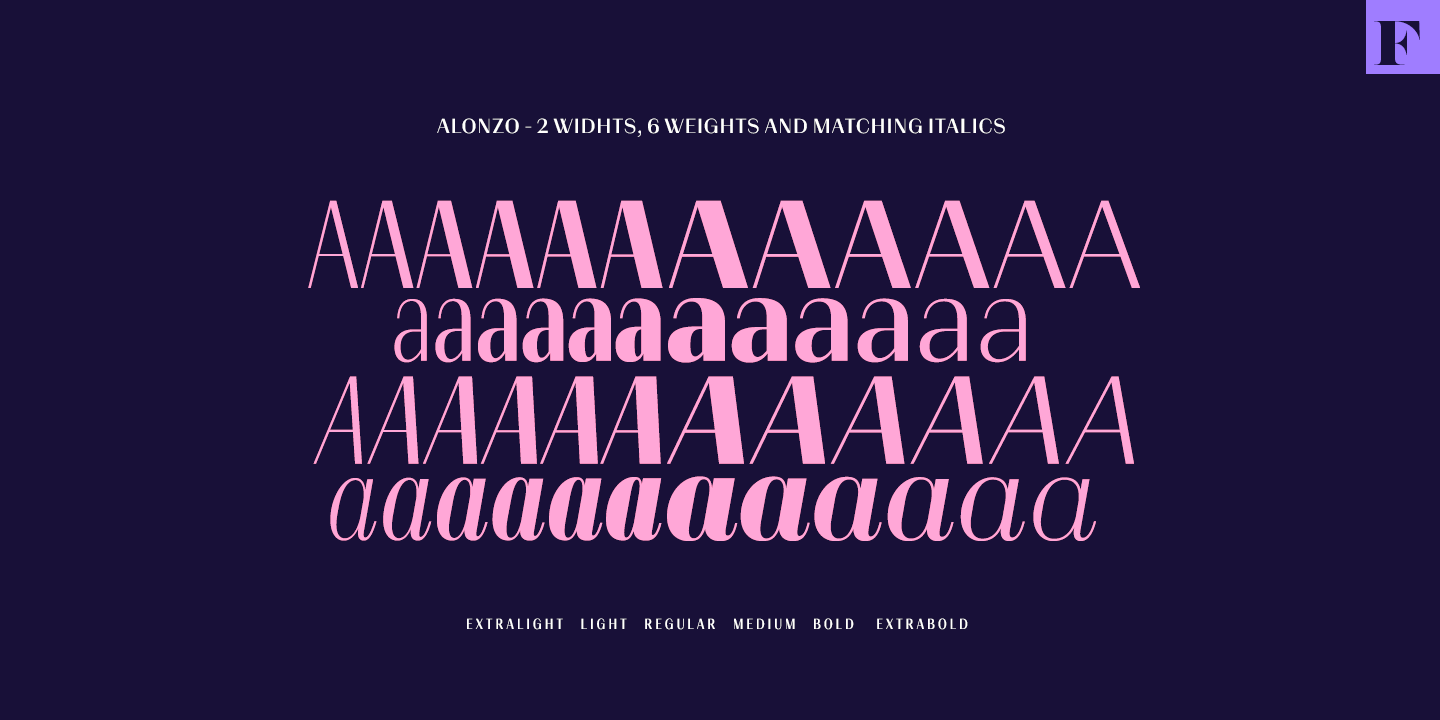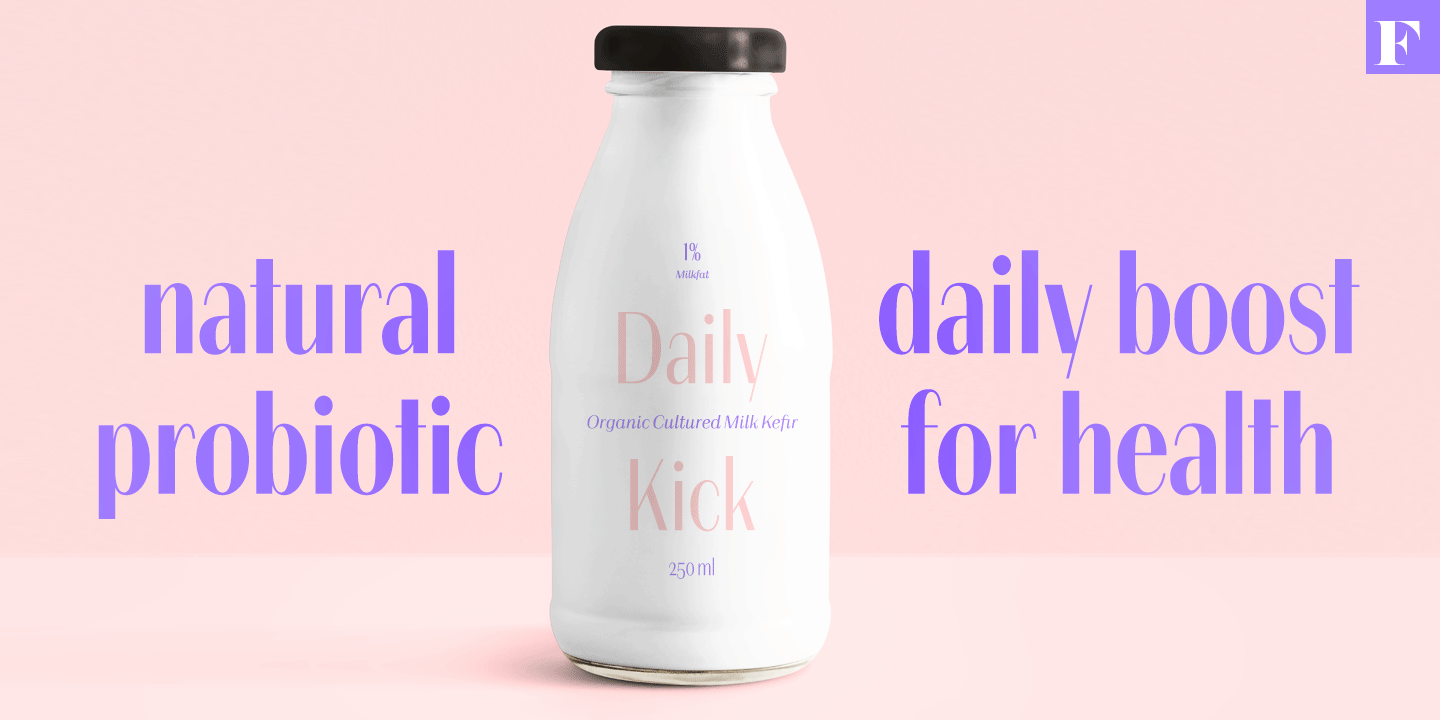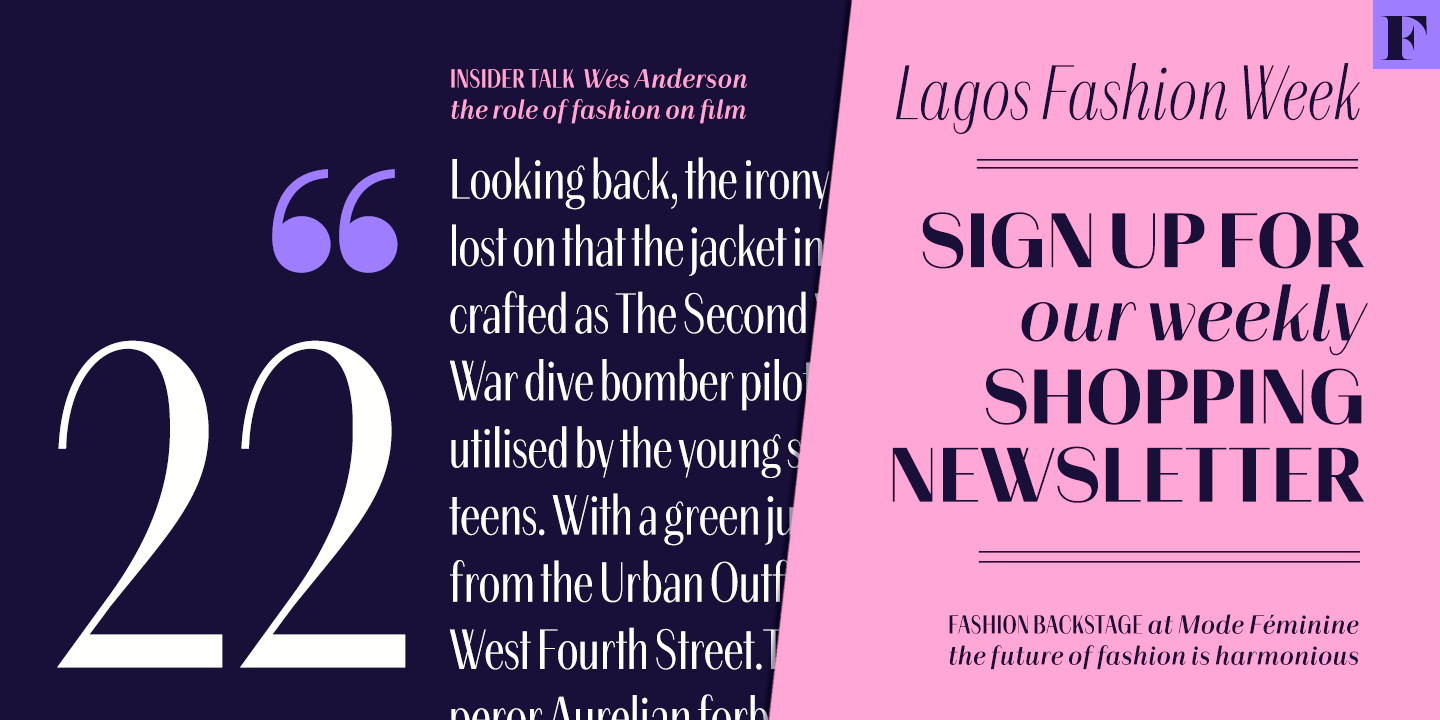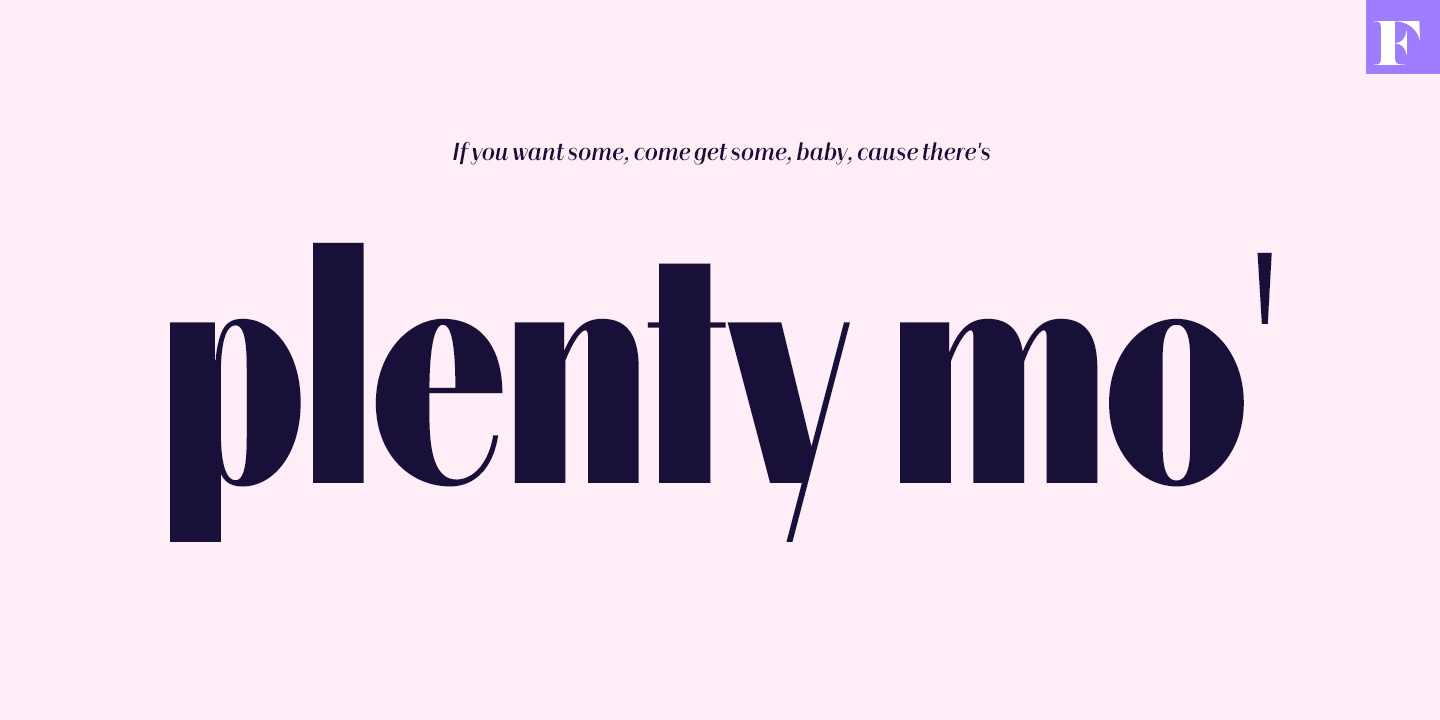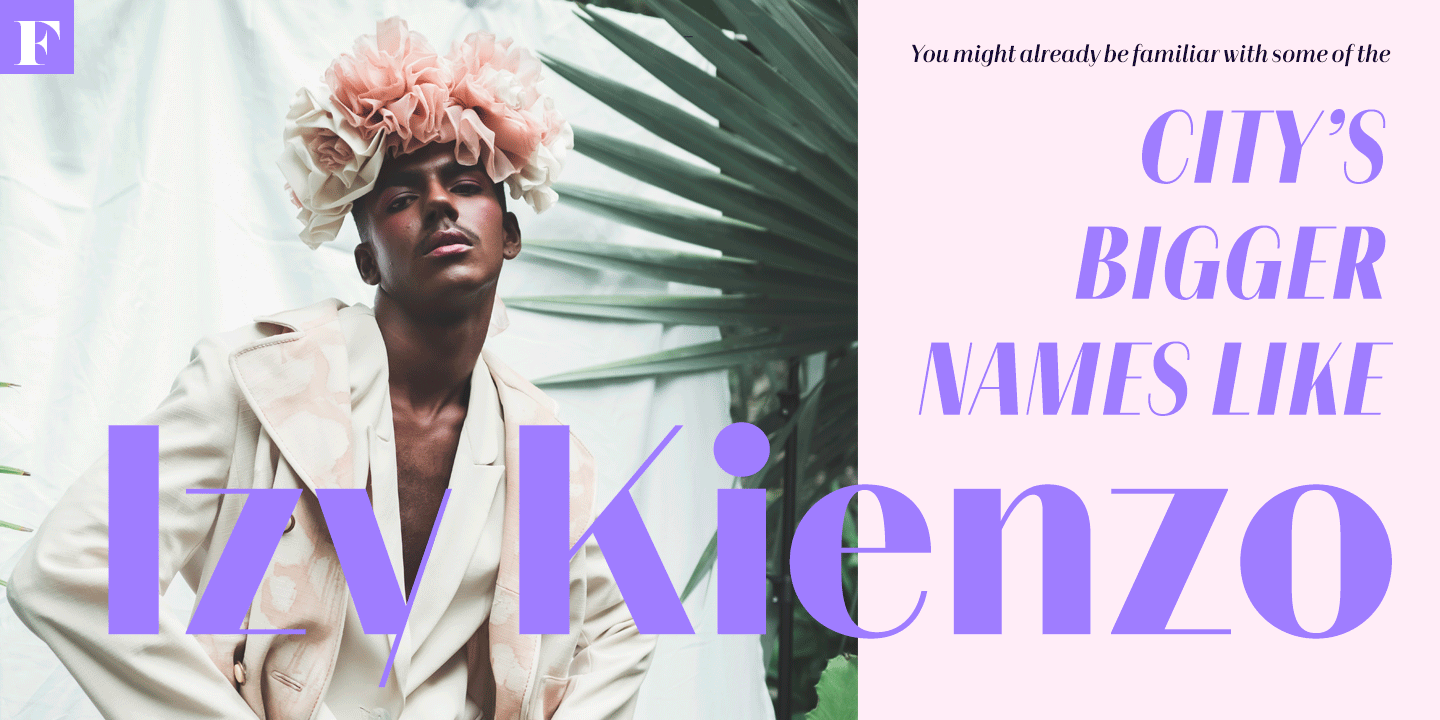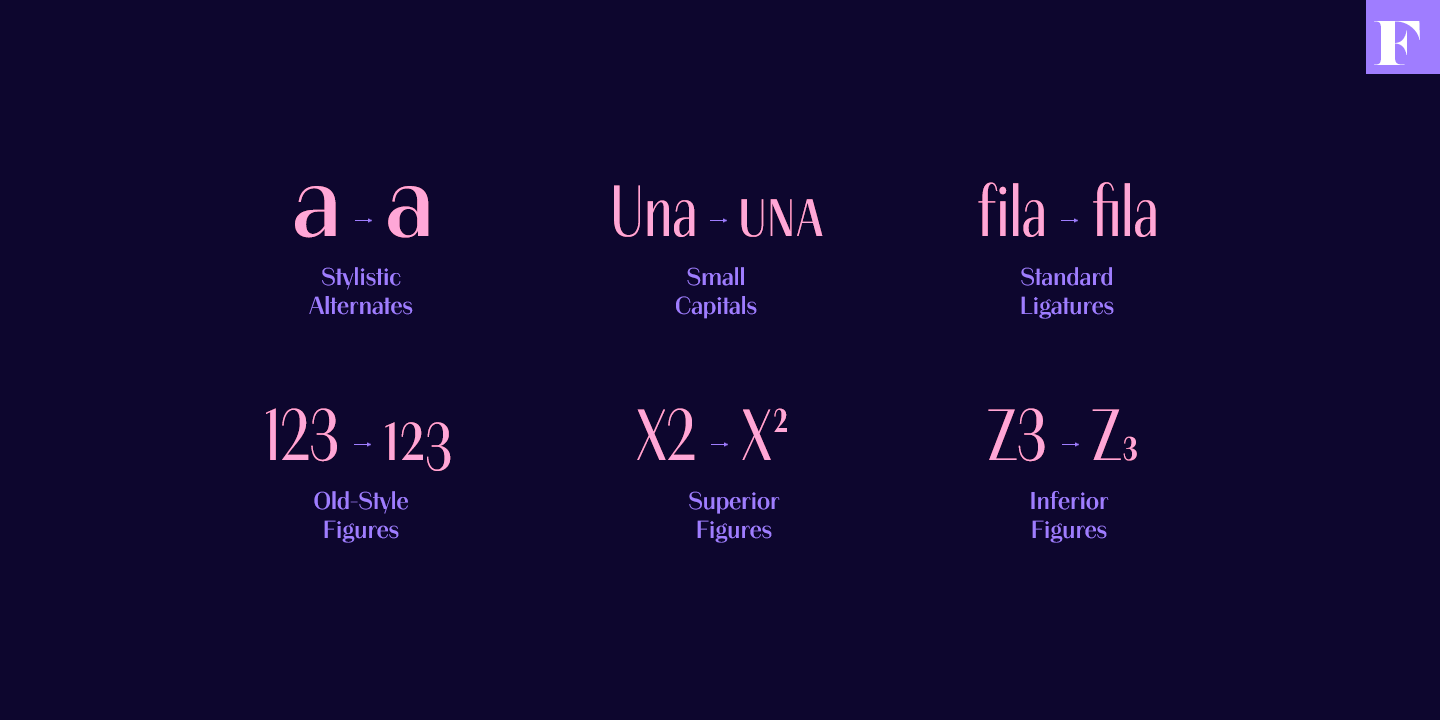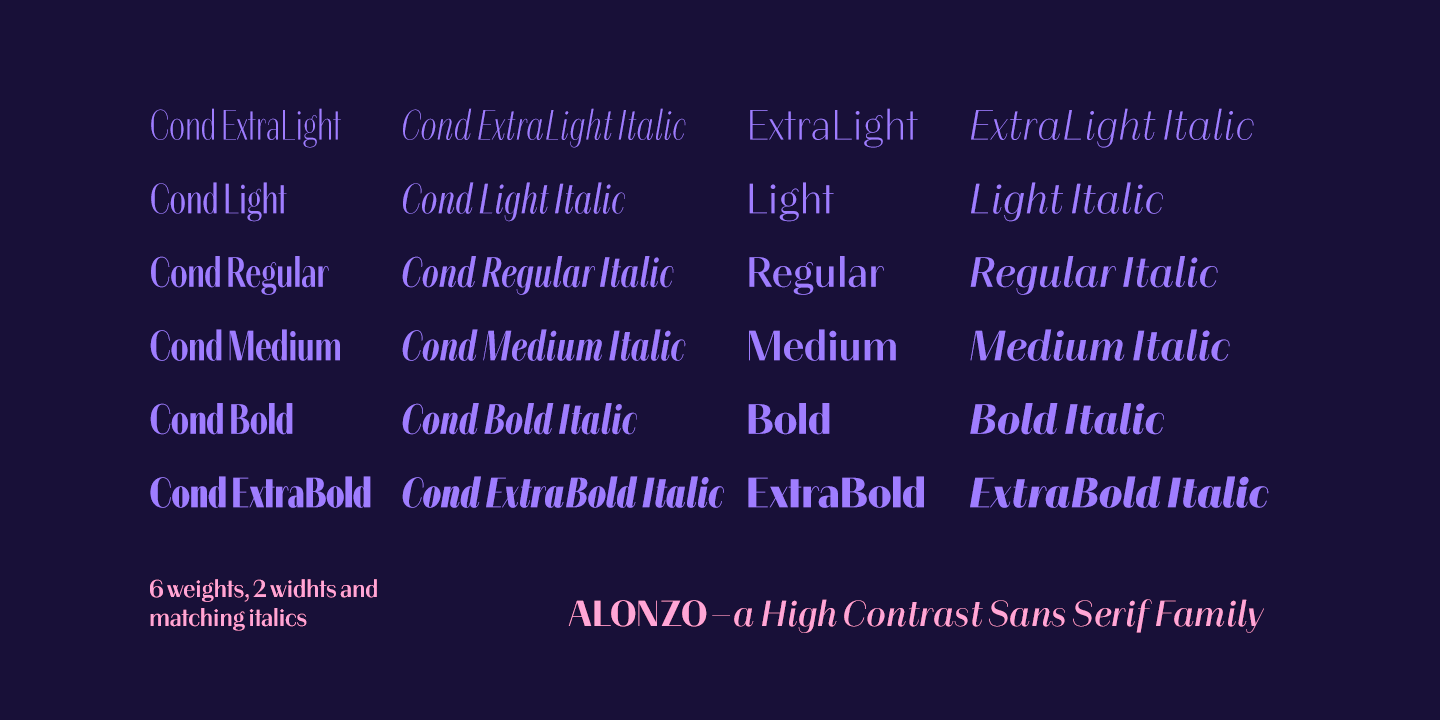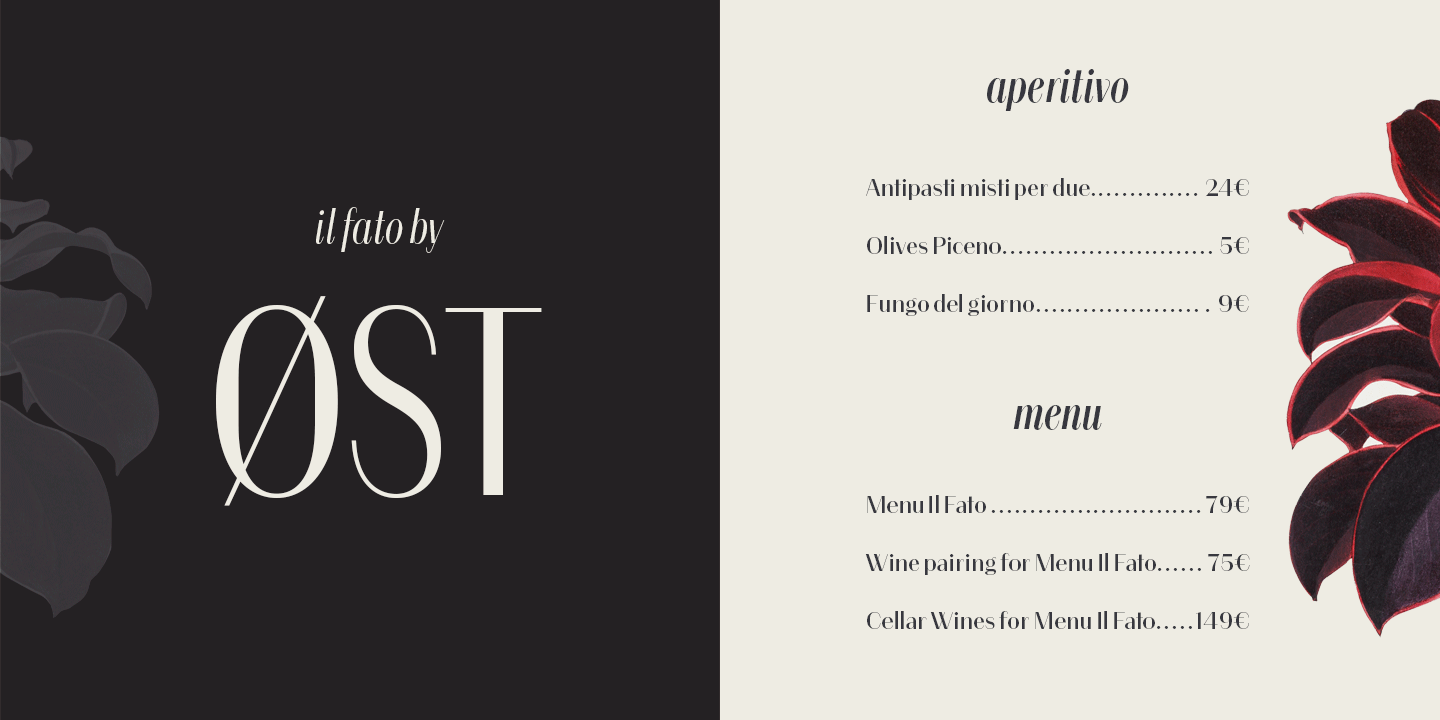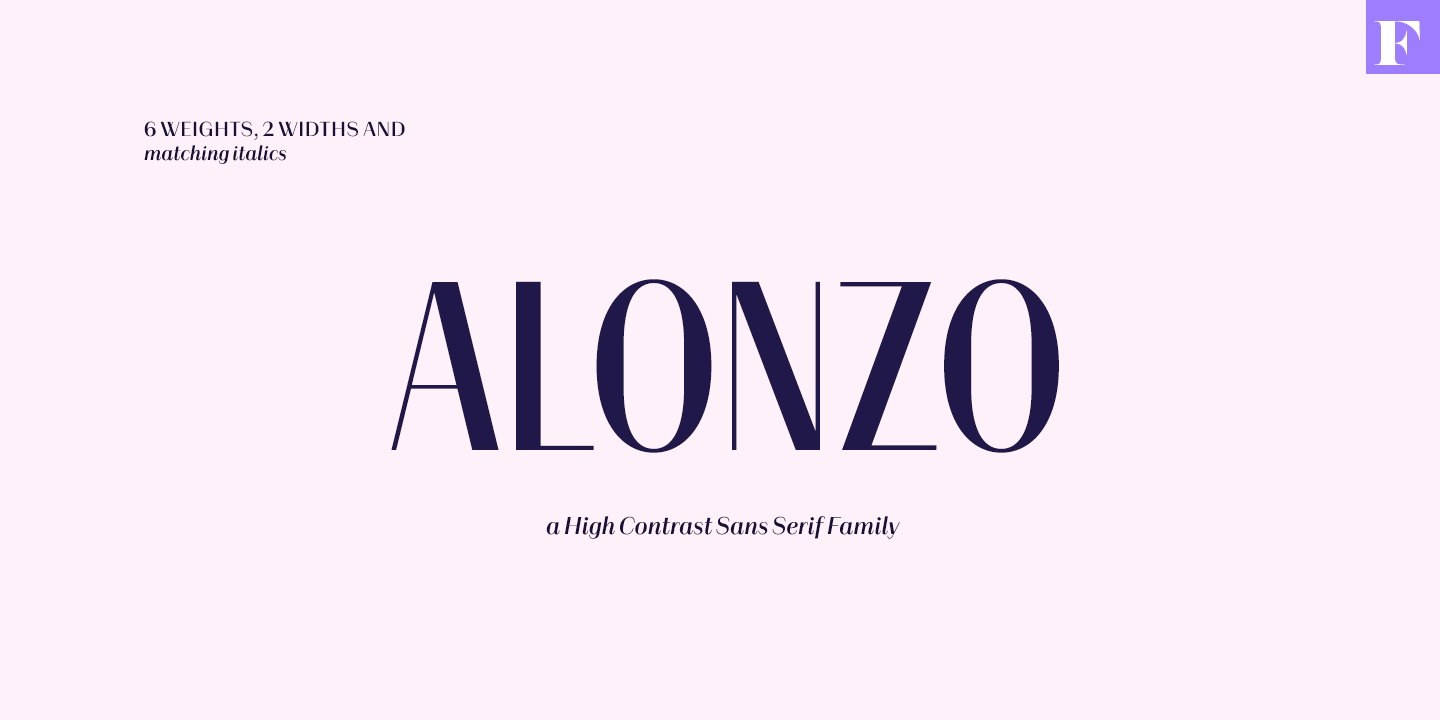
Alonzo
About Alonzo
Alonzo is a modern cosmopolitan who speaks several languages fluently. Alonzo comes in six weights and two widths, as well as corresponding italics, making a total 24 styles. Alonzo is an elegant, simplistic, high-contrast sans that is at home in high-end…